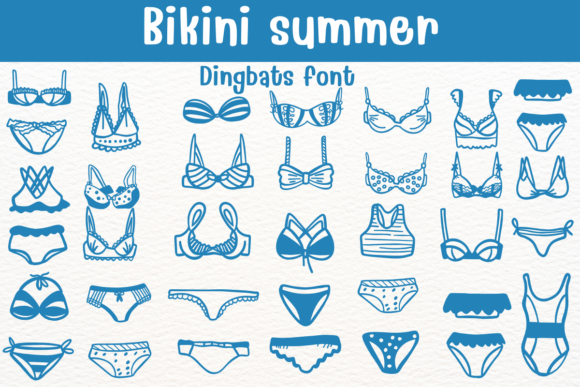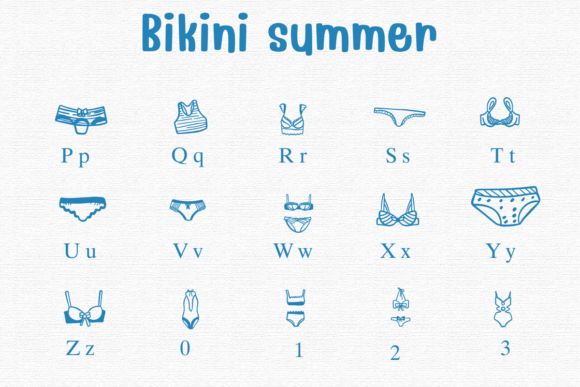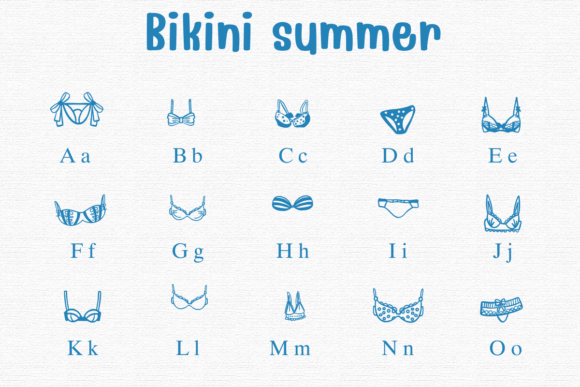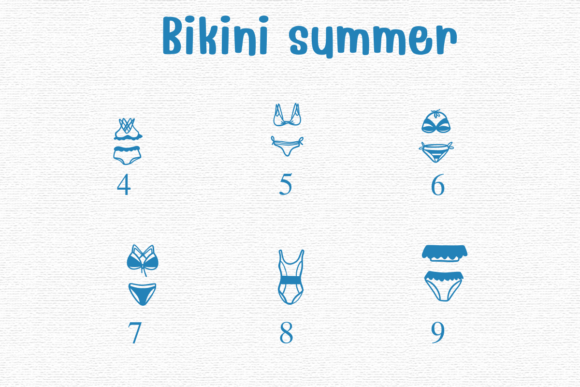
Bikini Summer Font
About the Bikini Summer Font
The Bikini Summer Font is here to transform your projects with its distinctive character and style. Bikini Summer is a dingbats font with a sketched style. This font can enhance your creative projects such as wedding invitations, DIY, crafts, decorations, logos, and many other creative ideas.